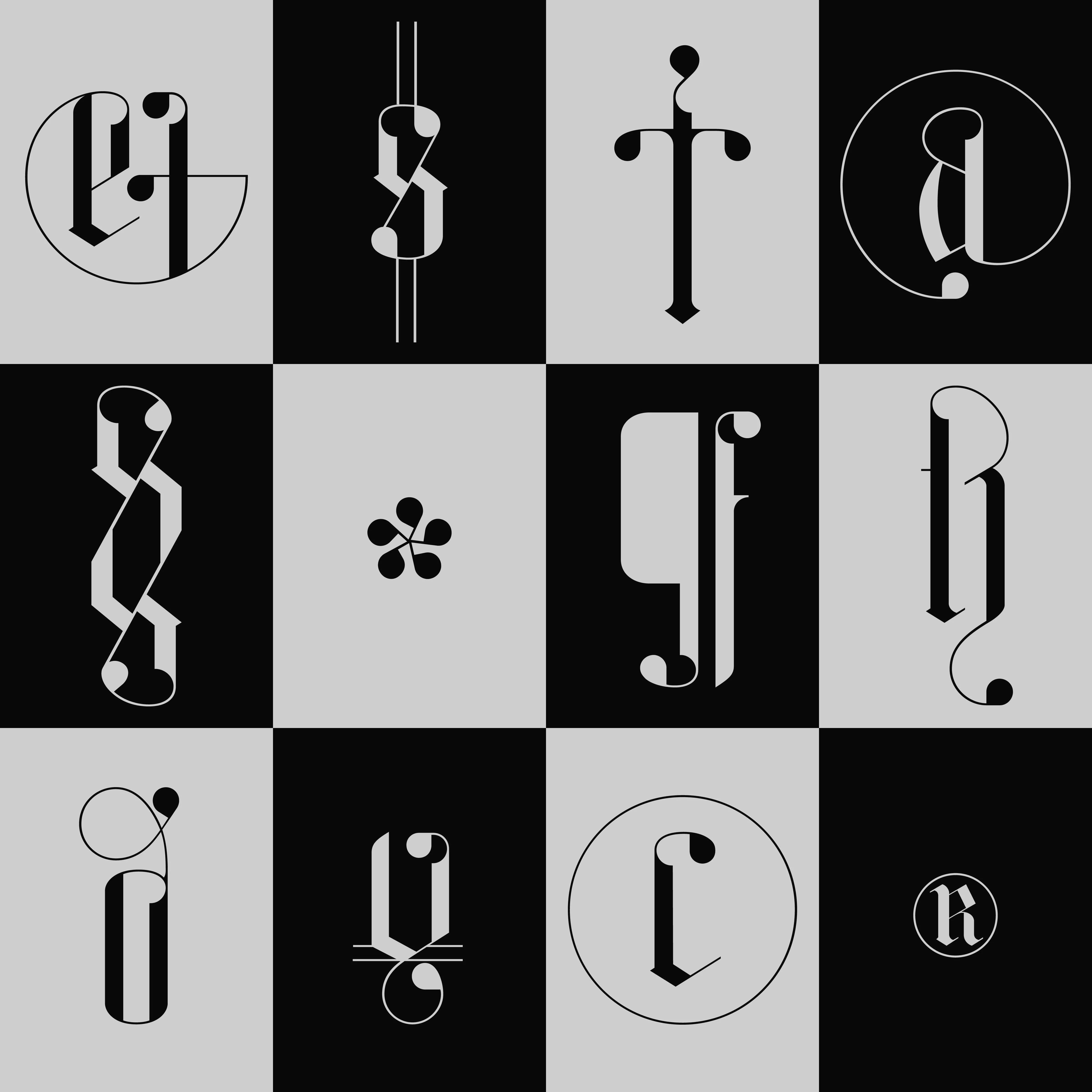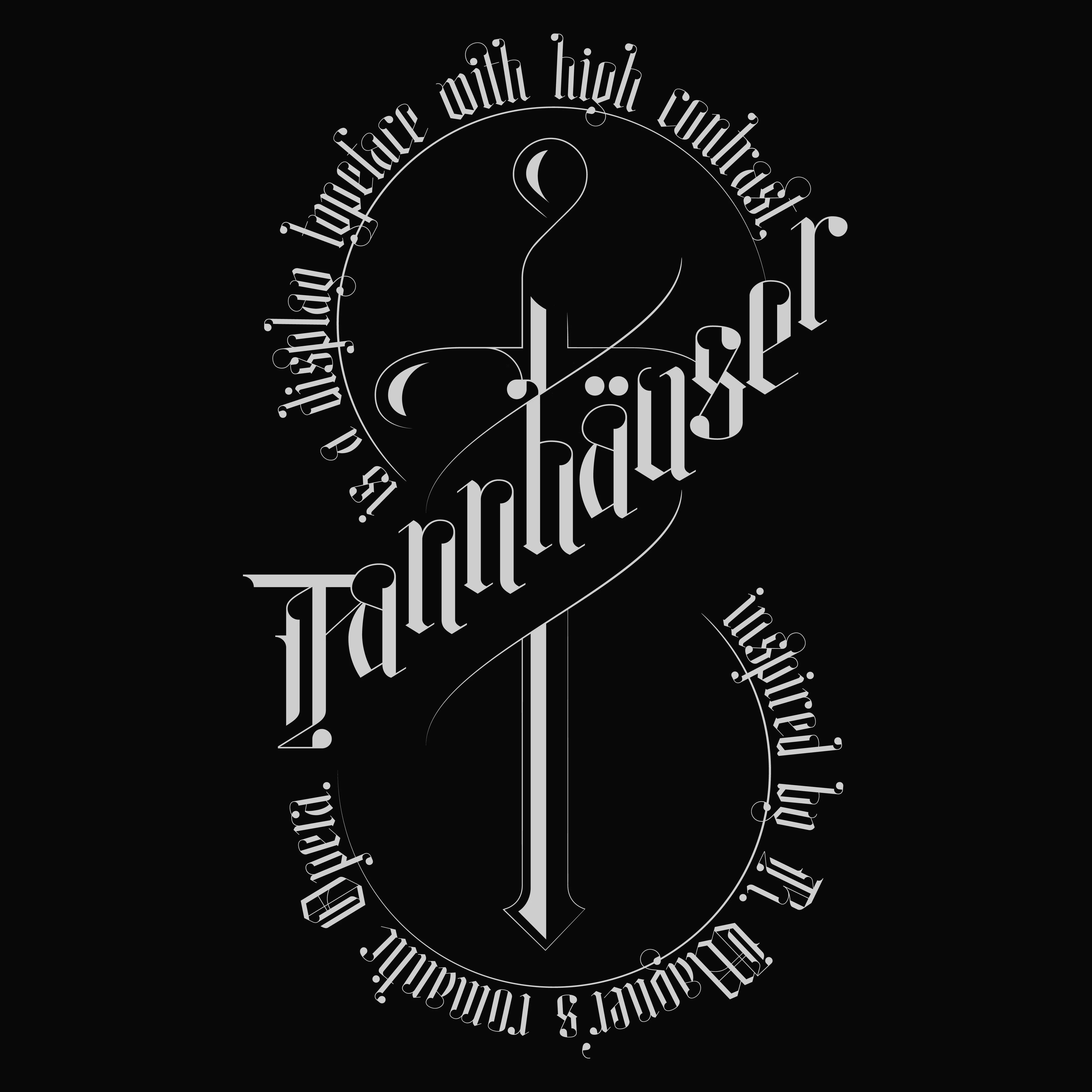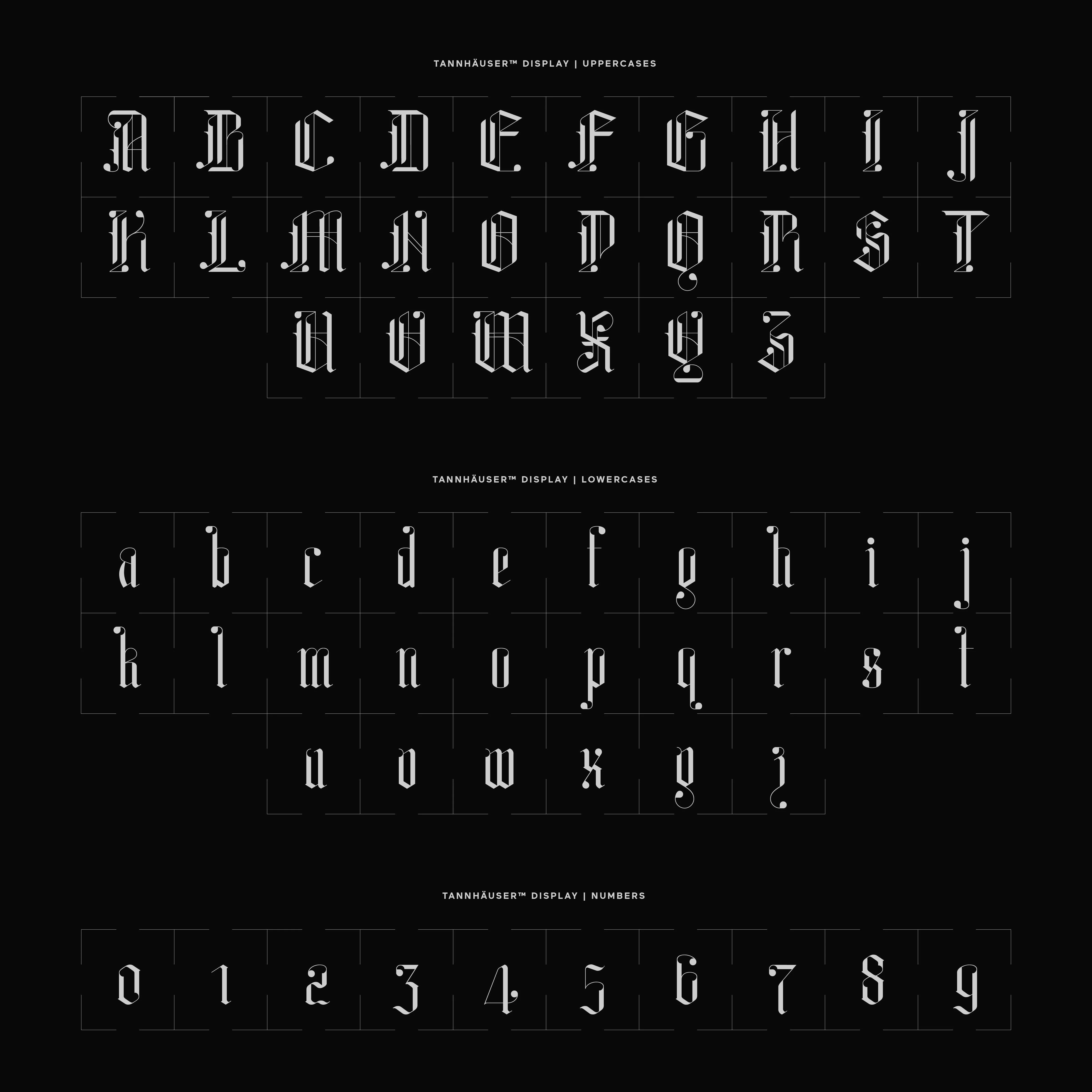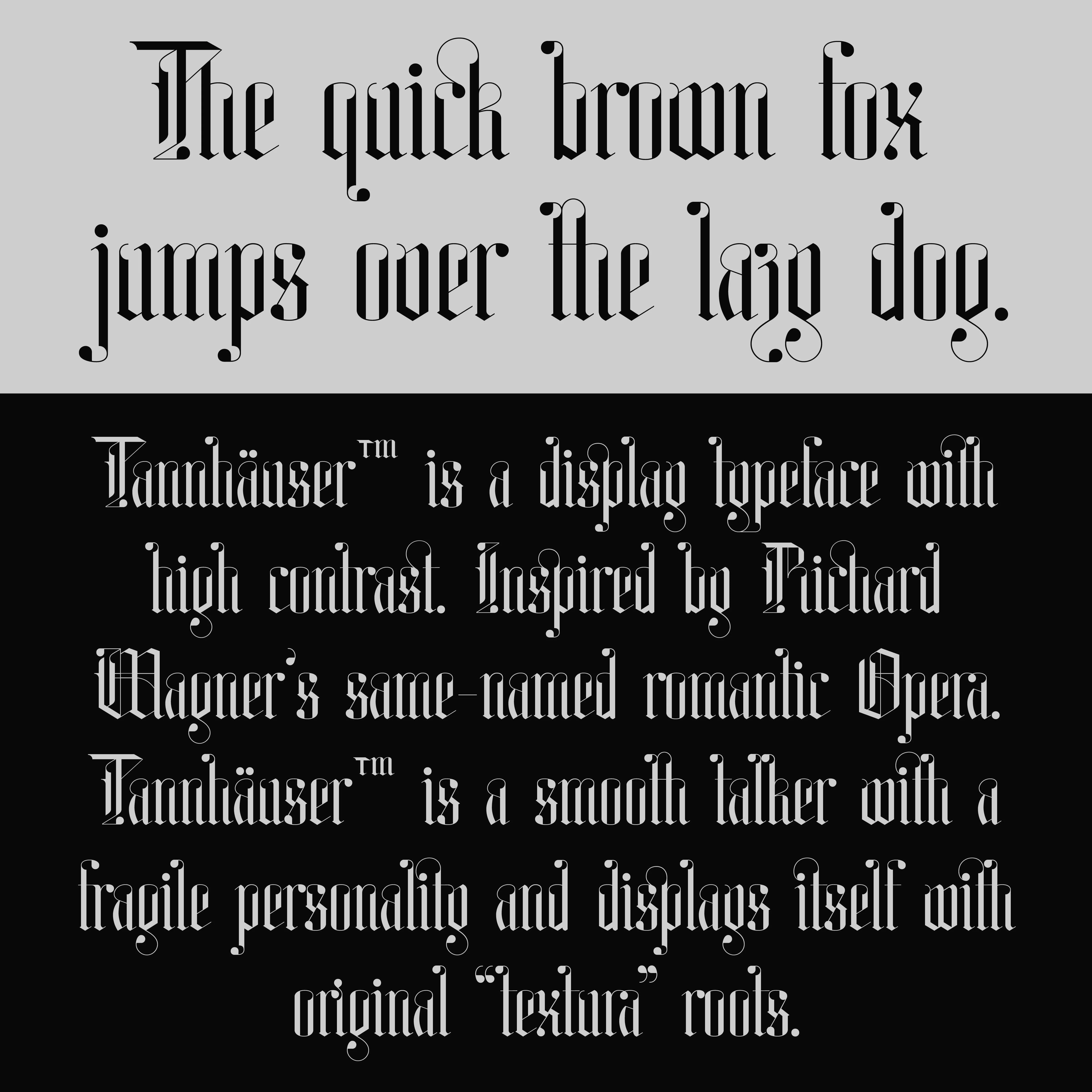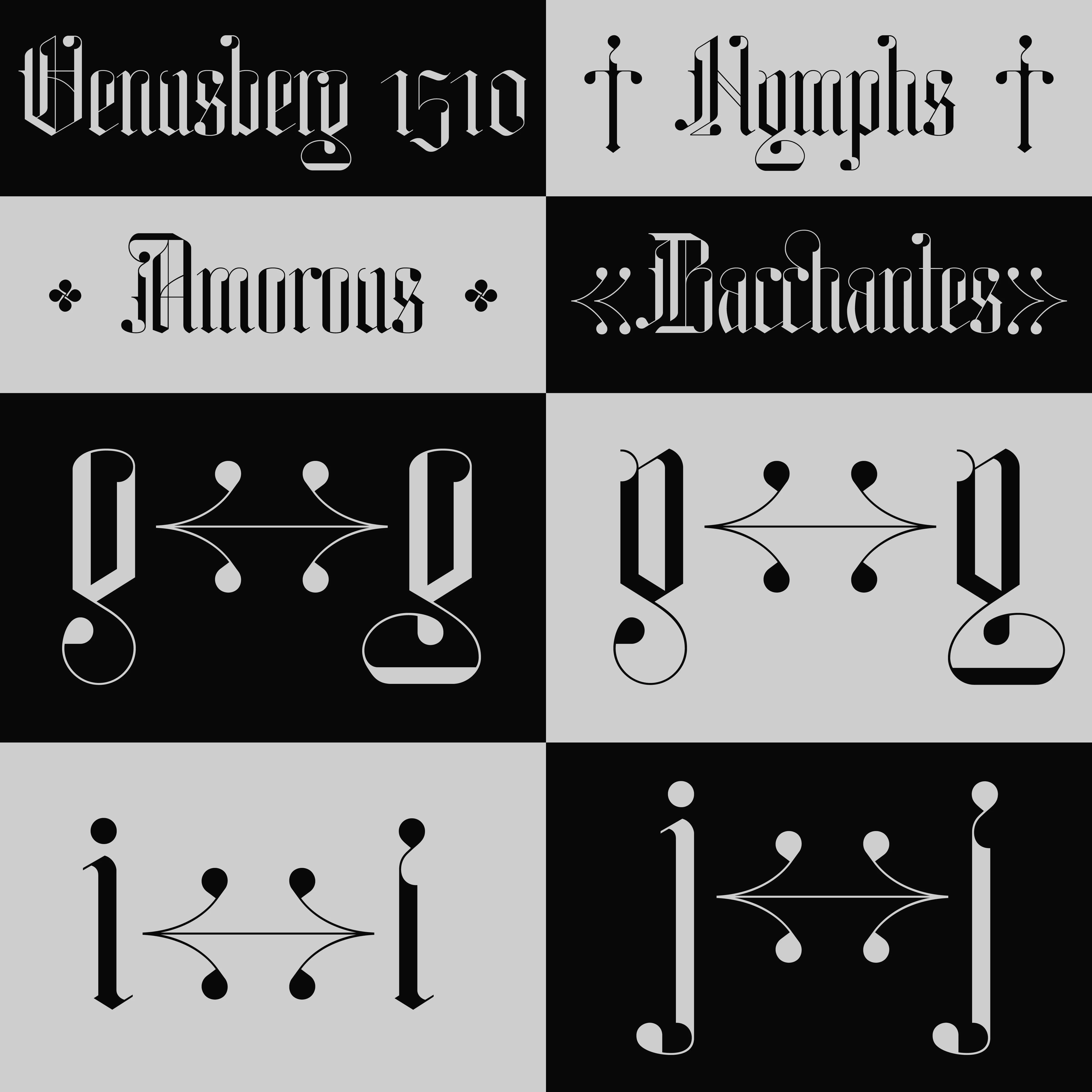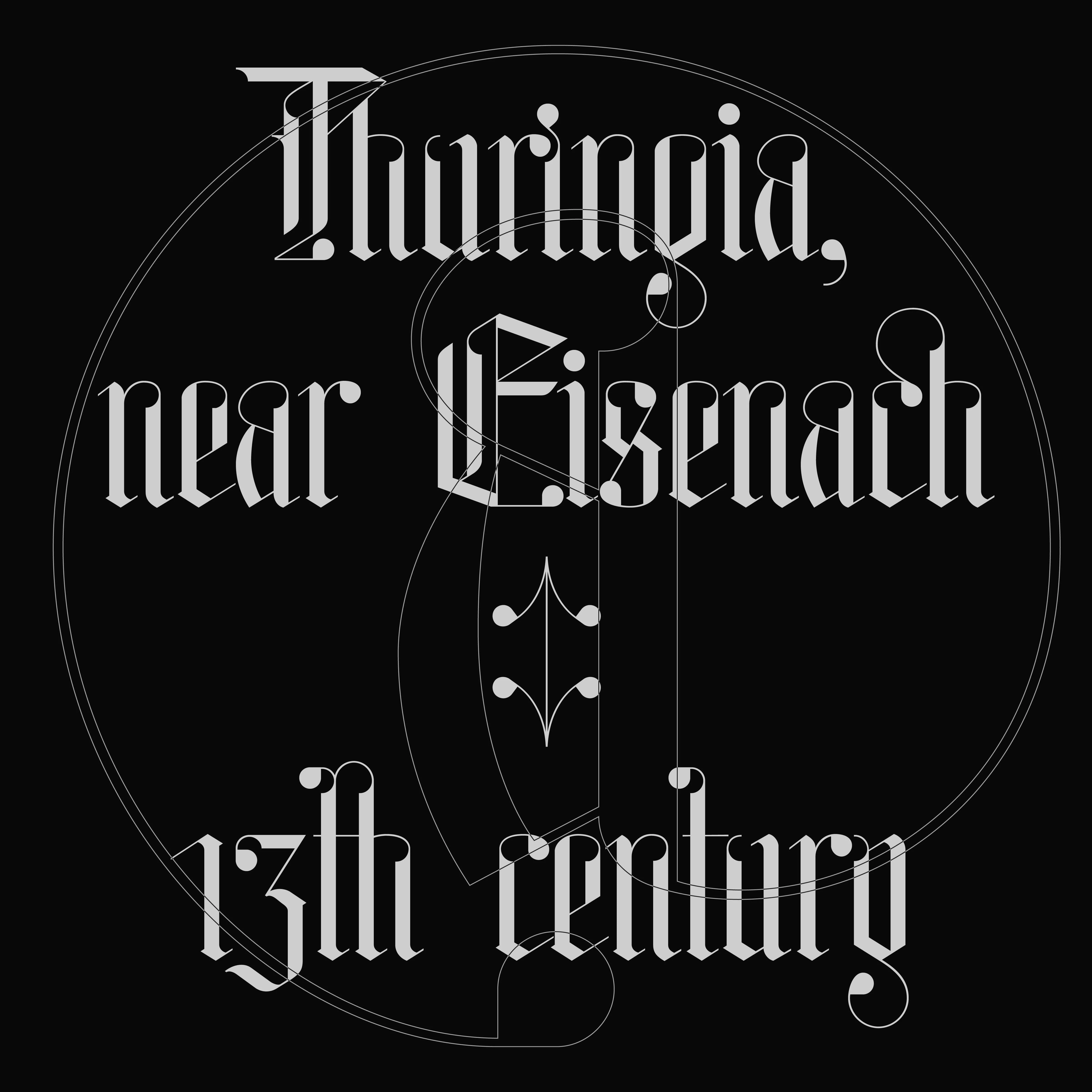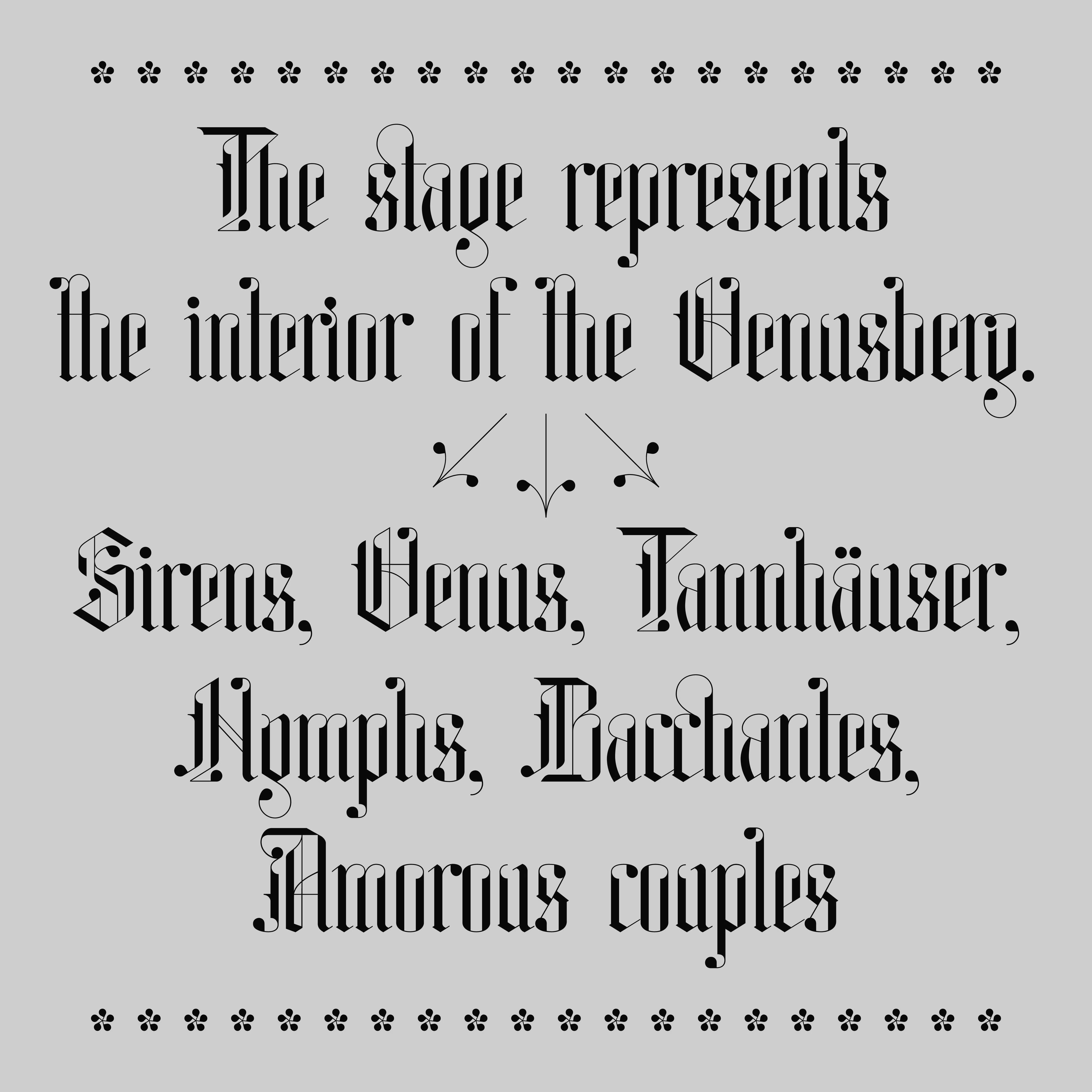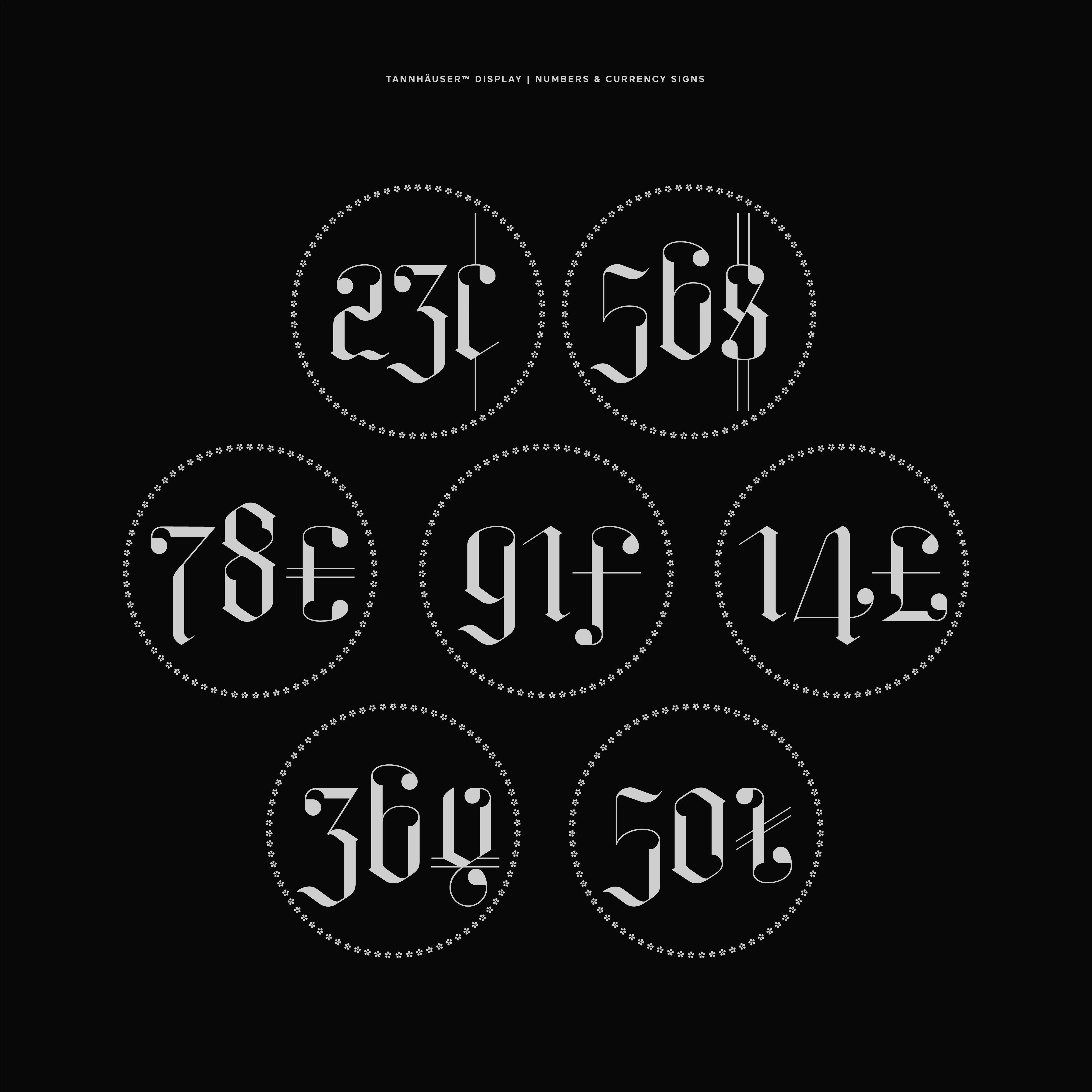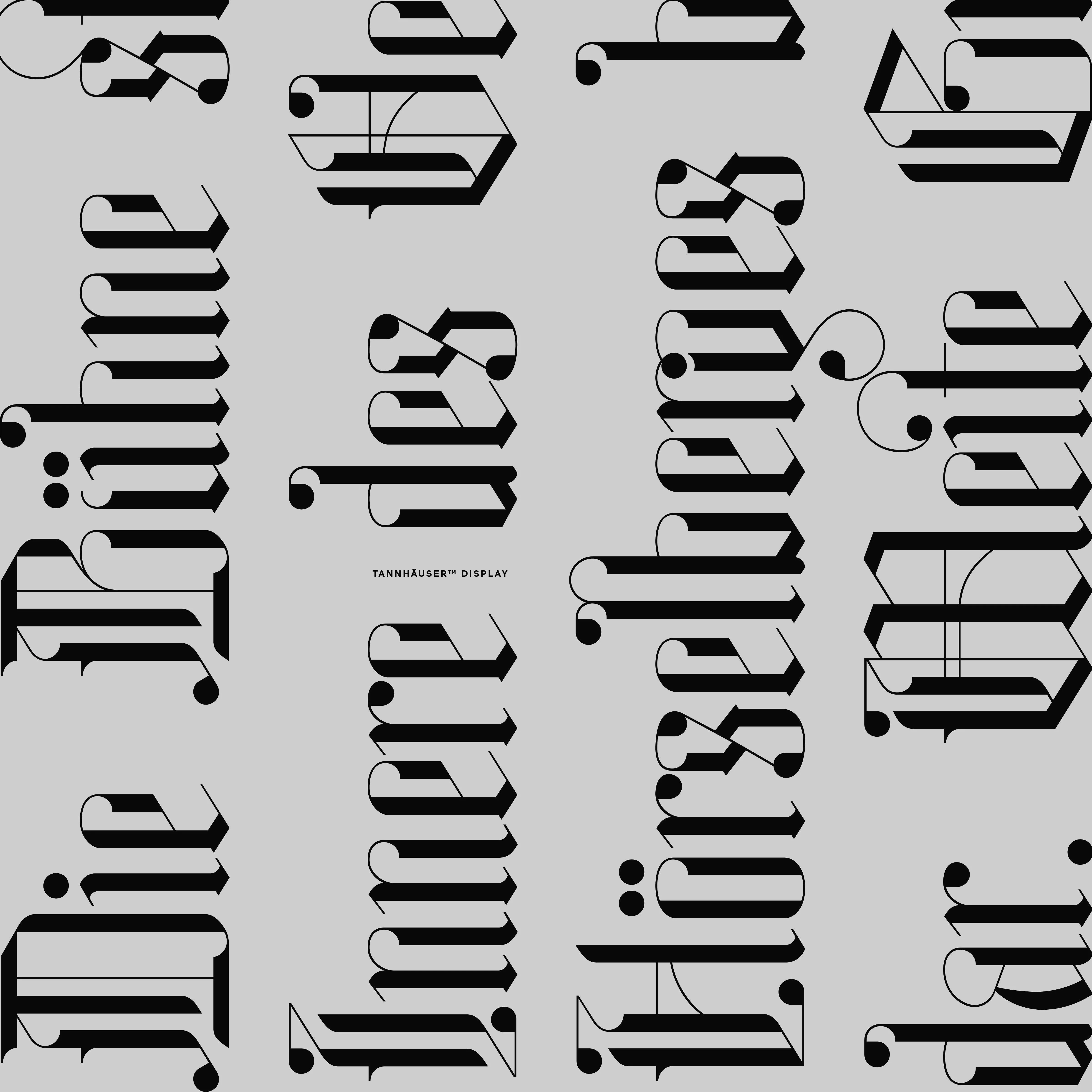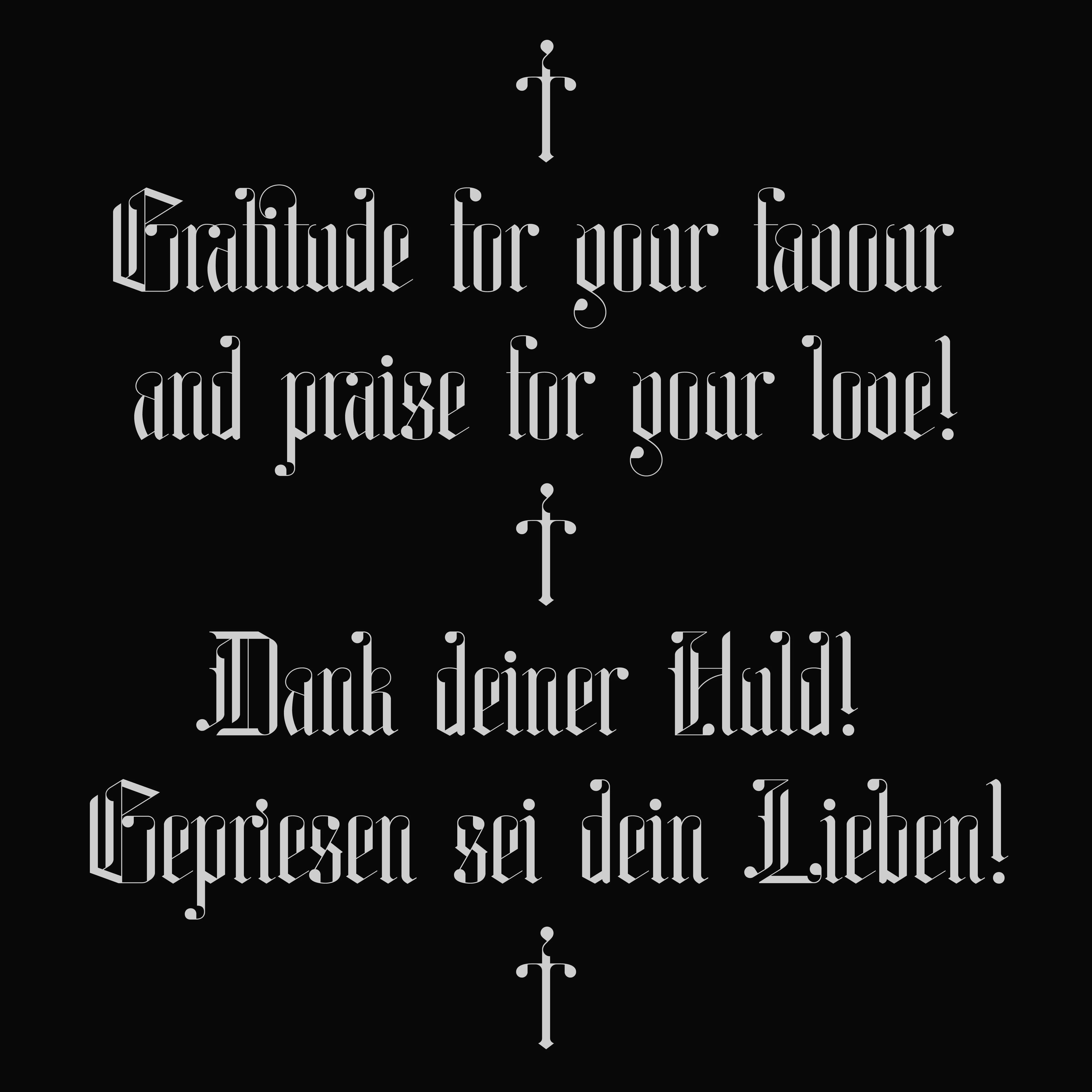
Tannhäuser
Tannhäuser™ is a high-contrast display typeface inspired by Richard Wagner’s romantic opera of the same name.
With its graceful curves and delicate strokes, Tannhäuser™ exudes a sense of elegance and refinement, capturing the essence of Wagner's musical compositions. The typeface's sophisticated structure and rhythmic feel make it ideal for creating captivating headlines, editorial designs, and artistic typography that evoke a sense of timeless beauty and cultural richness.
Tannhäuser™ is a high-contrast display typeface inspired by Richard Wagner’s romantic opera of the same name.
With its graceful curves and delicate strokes, Tannhäuser™ exudes a sense of elegance and refinement, capturing the essence of Wagner's musical compositions. The typeface's sophisticated structure and rhythmic feel make it ideal for creating captivating headlines, editorial designs, and artistic typography that evoke a sense of timeless beauty and cultural richness.